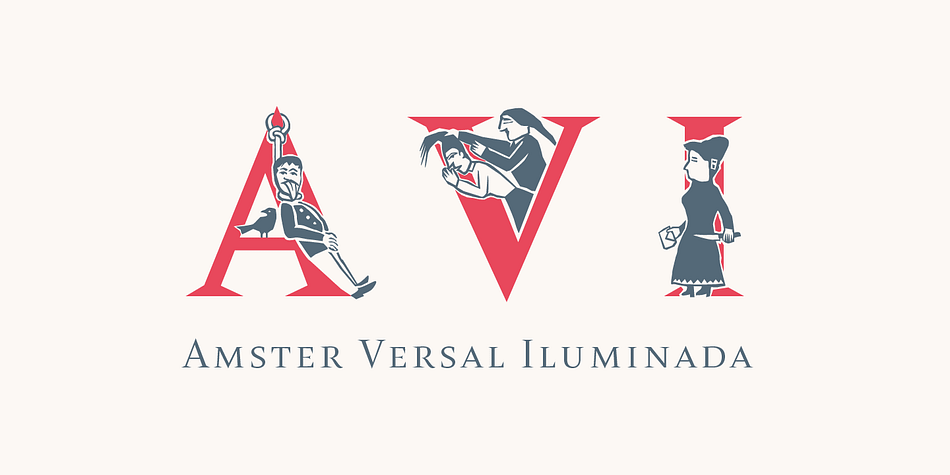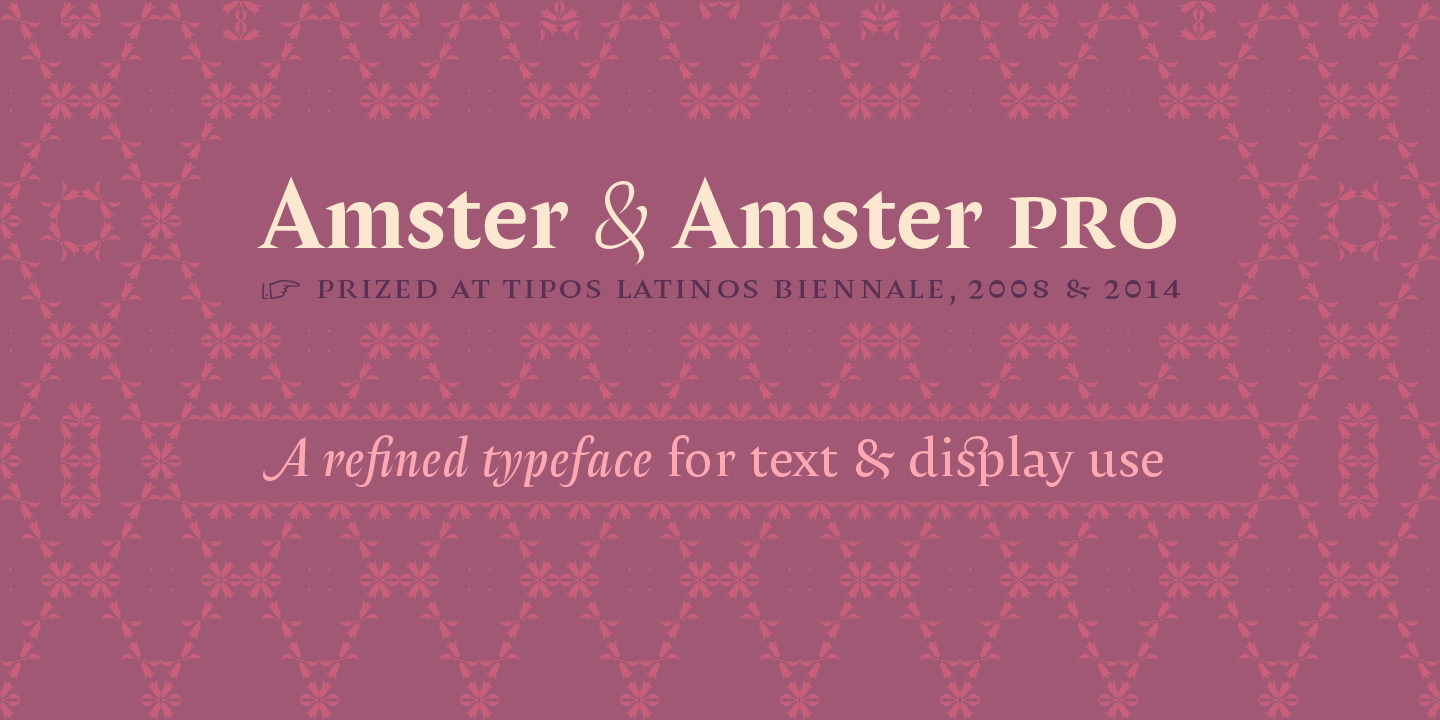
Amster
Amster is a monograms and serif font family. This typeface has eleven styles and was published by PampaType.
Amster is an energetic & refined type created by Francisco Gálvez, with a powerful concept on how refinement & austerity can meet harmoniously.
Amster can build a text that is highly readable and friendly.
It has five weights of roman & cursive.
Amster Pro (only available at PampaType.com) is fully equipped with all OT sorts such as roman & cursive smallcaps, 2 kinds of swashes, smart ornaments, and more.
There is also a wonderful set of illuminated initials, Amster Versal Iluminada.
All Amster fonts include diacritics coverage for more than 200 languages.
Its style makes Amster a very versatile family, allowing for a wide range of uses: screen to print, small text to display, science to poetry.
Amster was prized at two different editions of the Tipos Latinos biennale (2008 & 2014) and is as a Typographica favorite of 2014.
Amster is an energetic & refined type created by Francisco Gálvez, with a powerful concept on how refinement & austerity can meet harmoniously.
Amster can build a text that is highly readable and friendly. It has five weights of roman & cursive. Amster Pro (only available at PampaType.com) is fully equipped with all OT sorts such as roman & cursive smallcaps, 2 kinds of swashes, smart ornaments, and more.
There is also a wonderful set of illuminated initials, Amster Versal Iluminada. All Amster fonts include diacritics coverage for more than 200 languages. Its style makes Amster a very versatile family, allowing for a wide range of uses: screen to print, small text to display, science to poetry.
Amster was prized at two different editions of the Tipos Latinos biennale (2008 & 2014) and is as a Typographica favorite of 2014.